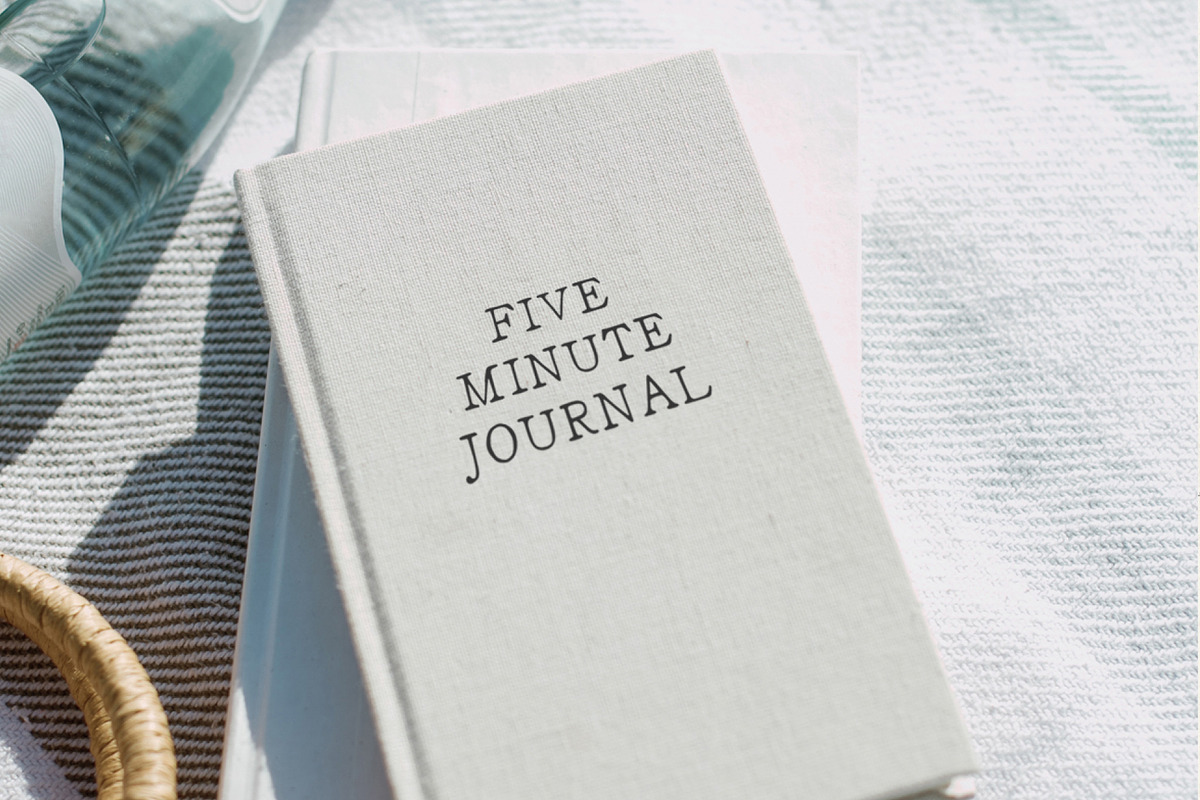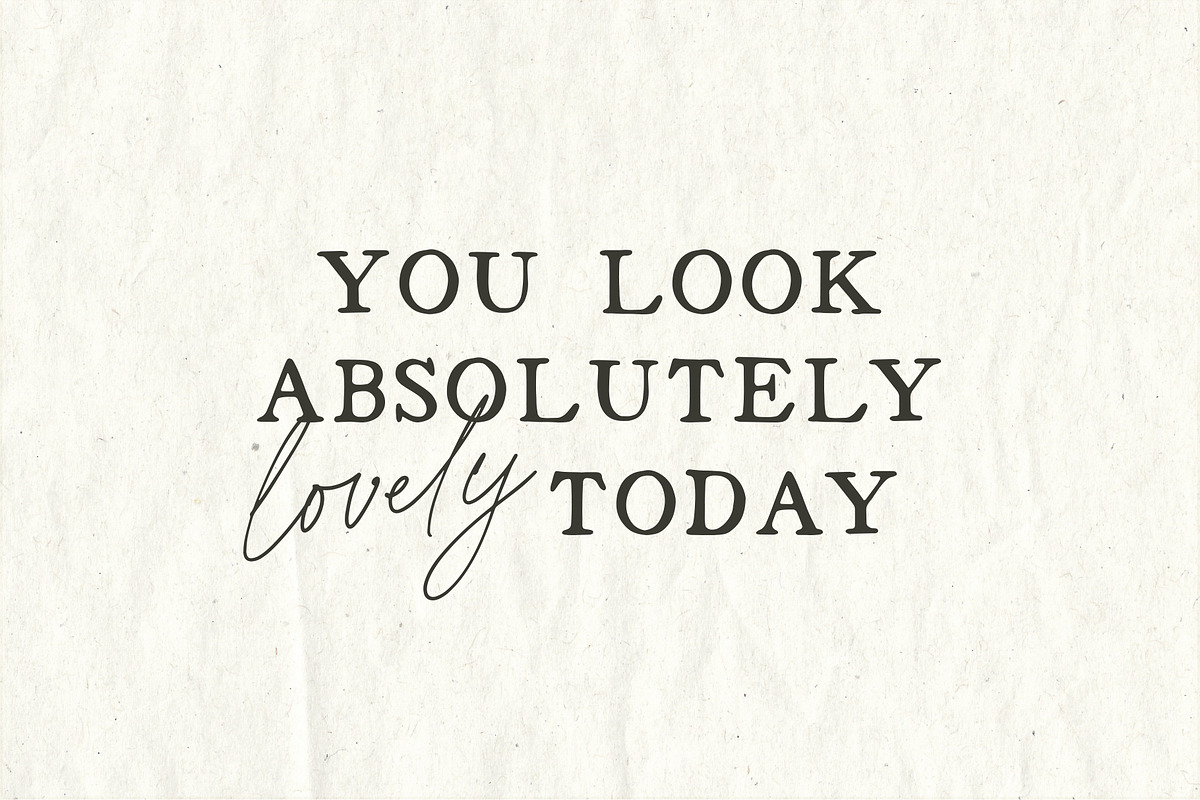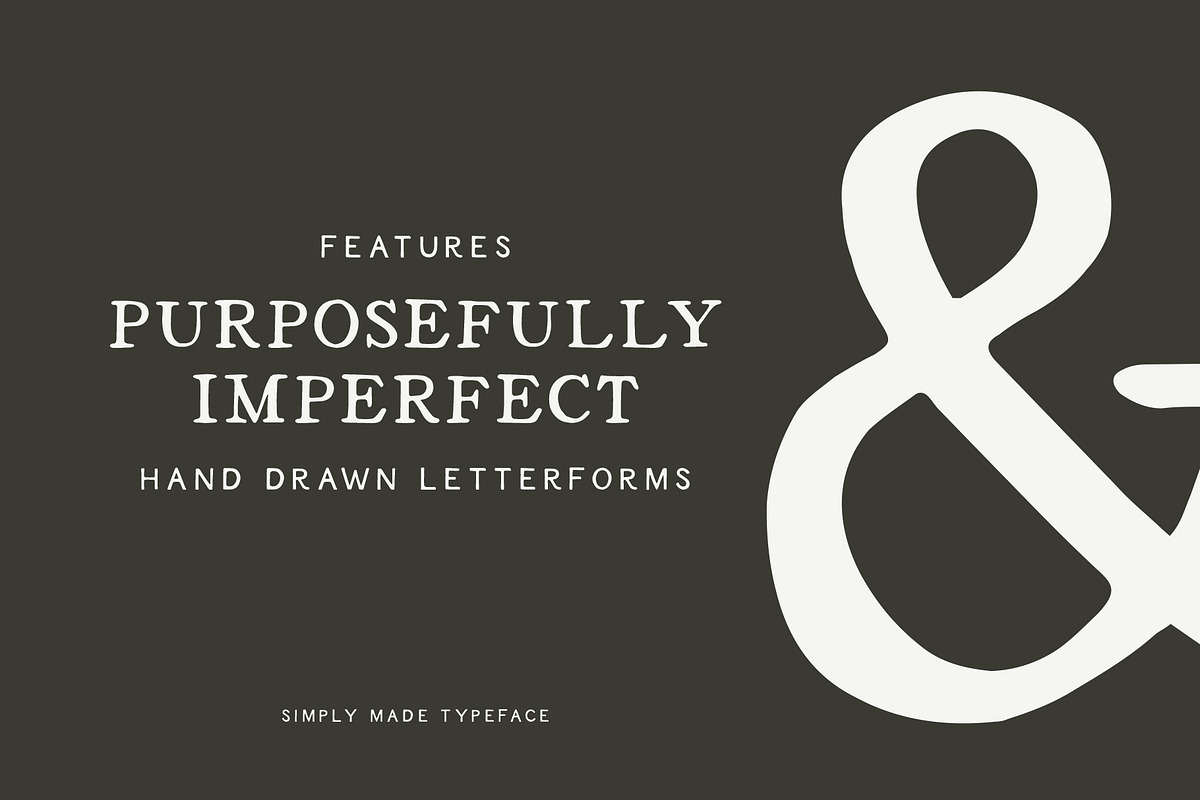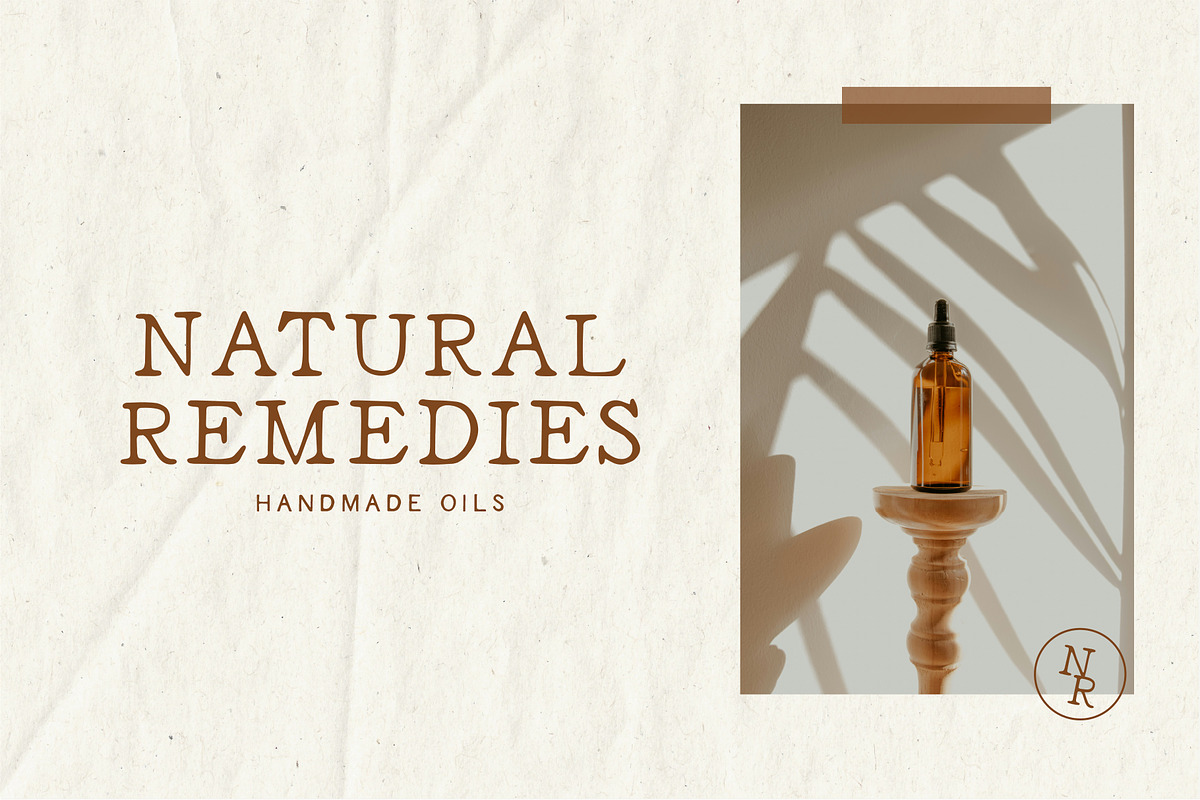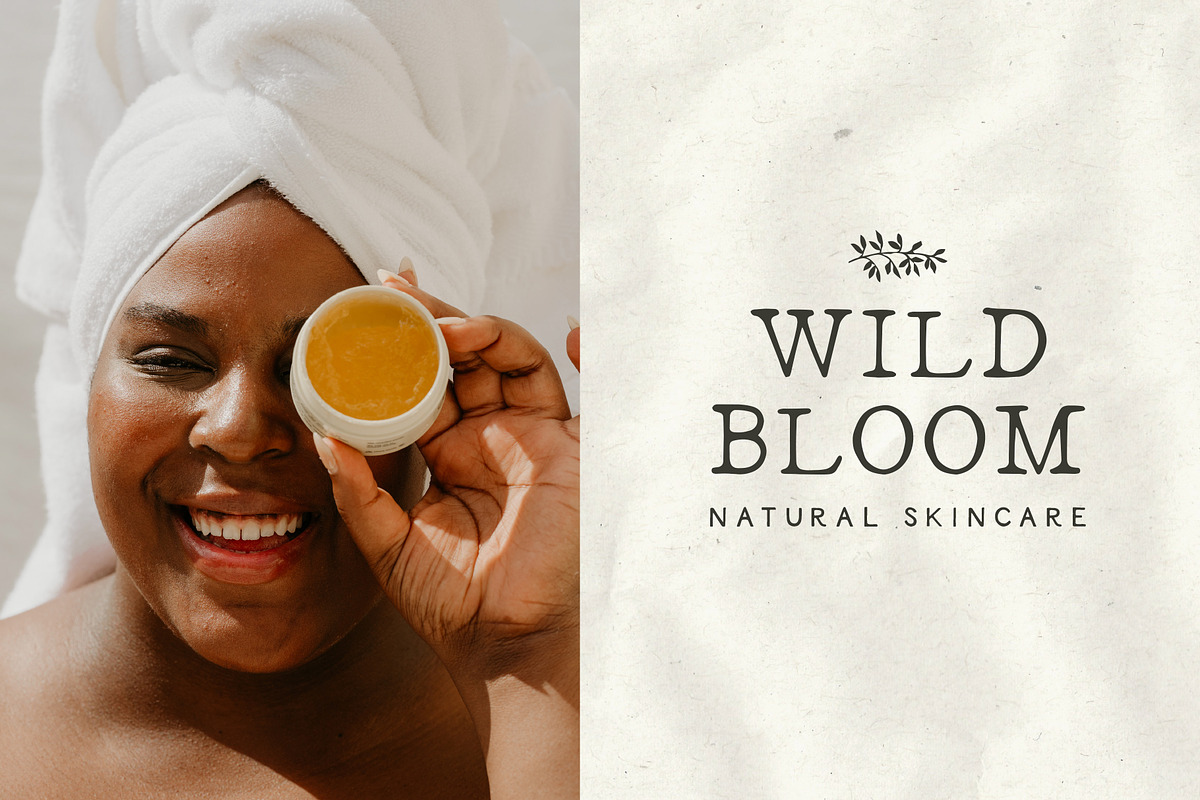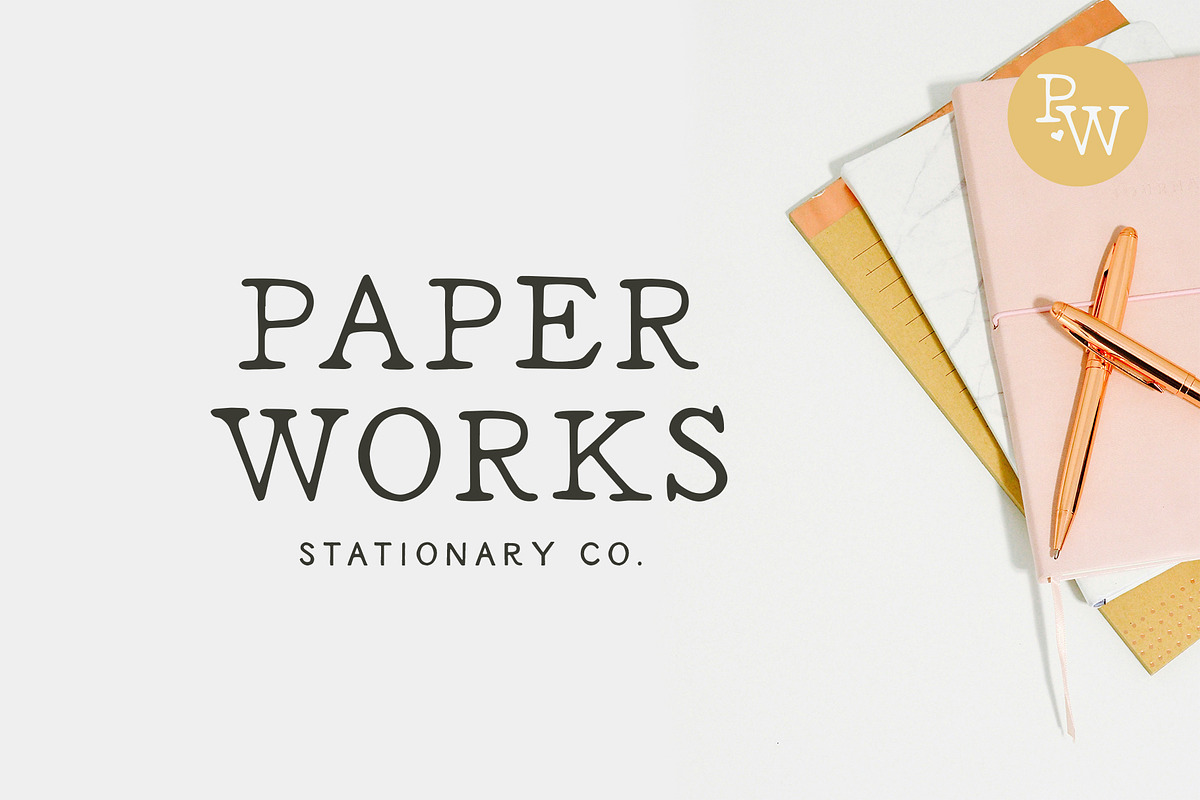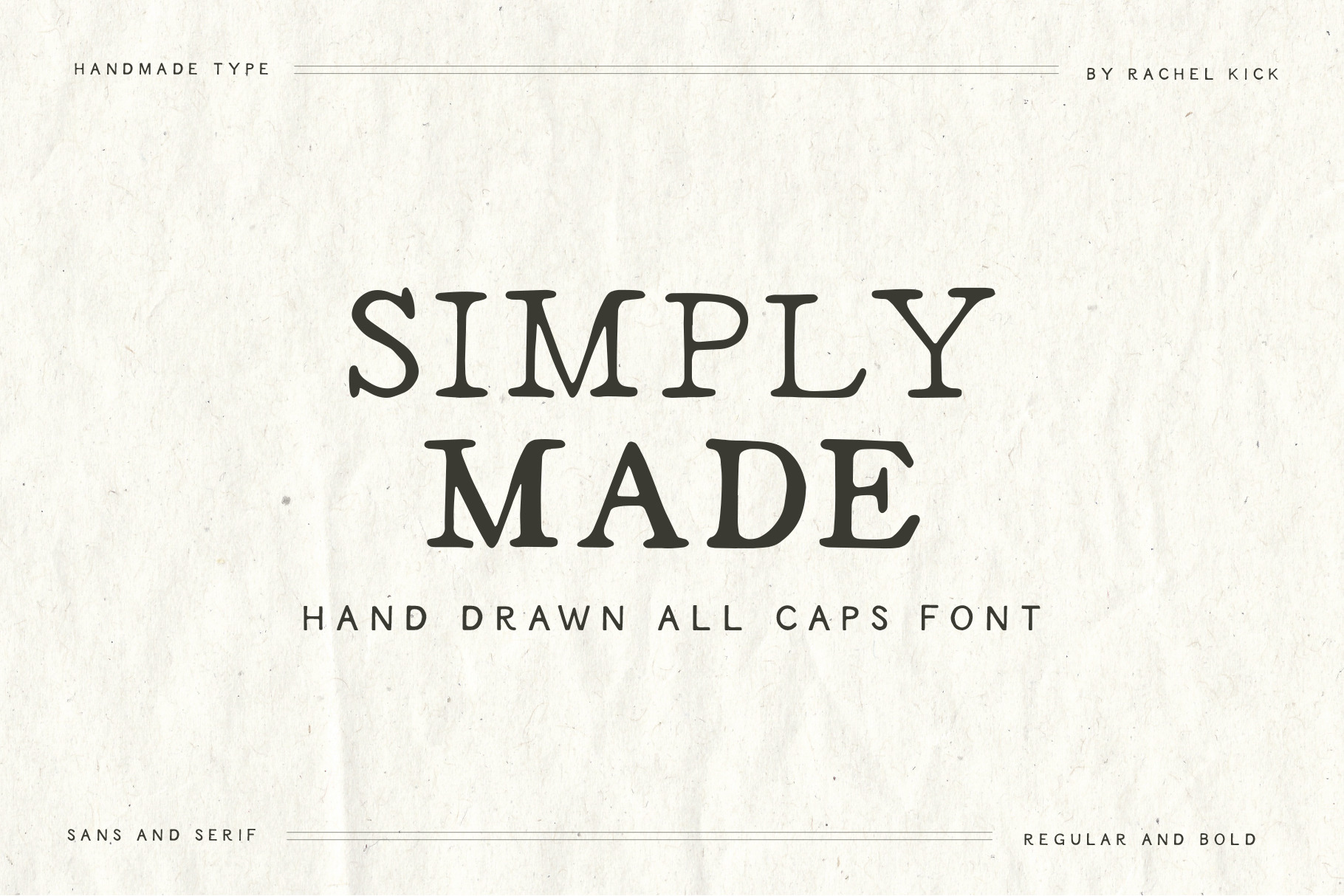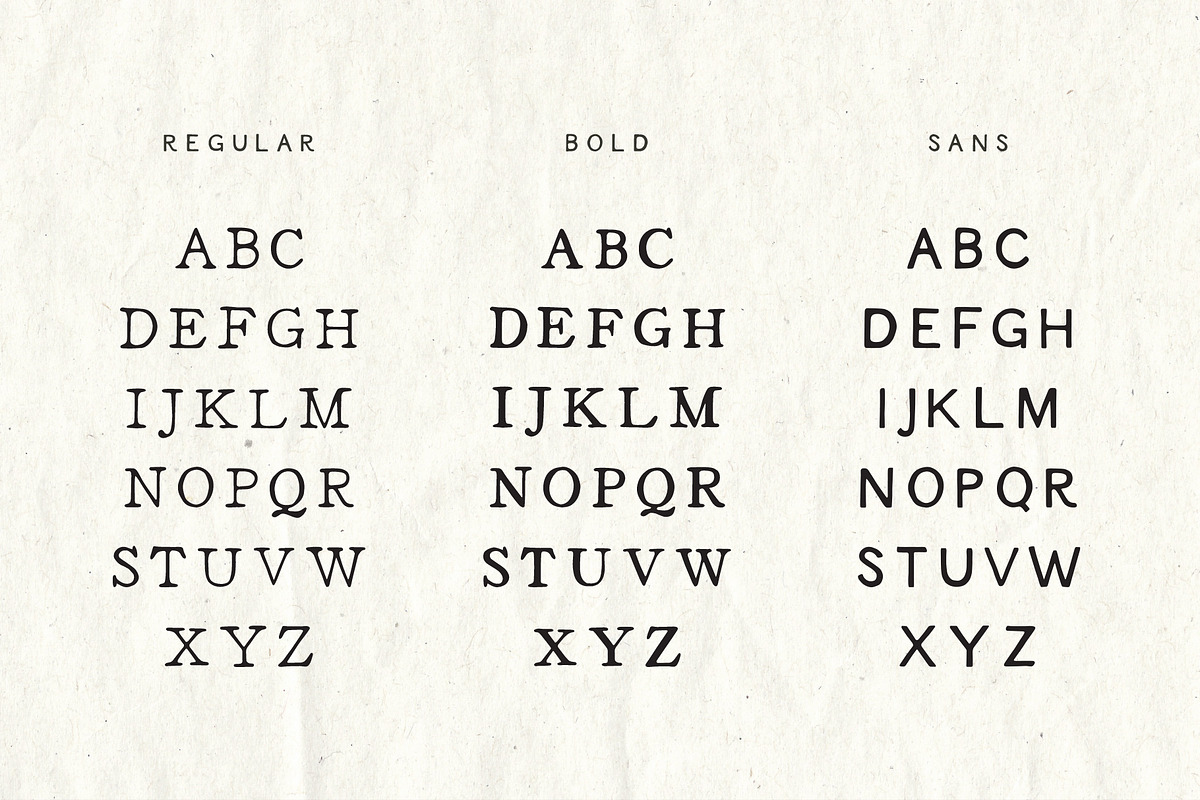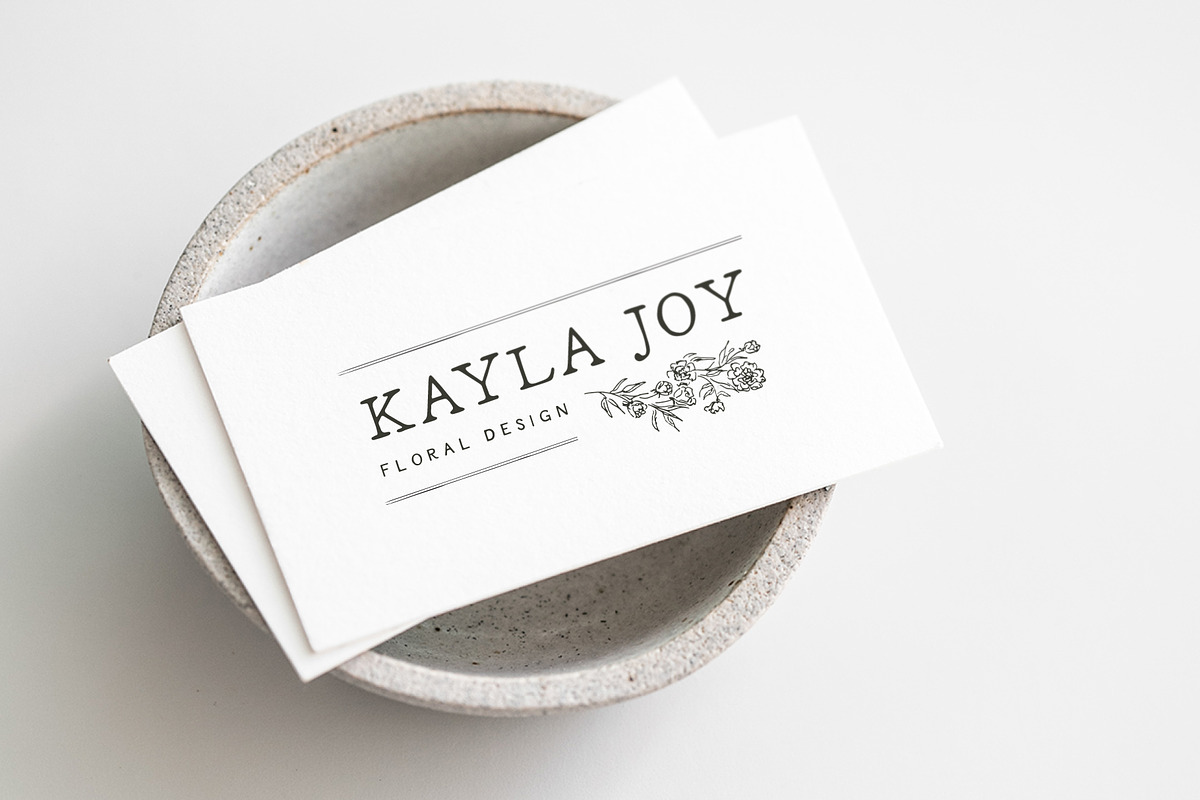
Simply Made Hand Drawn Typeface
Introducing Simply Made - A Hand-Drawn Typeface
Each character of Simply Made was first drawn by hand to give it a distinct analog feel. With three styles that easily compliment each other, Simply Made is perfect for your next project!